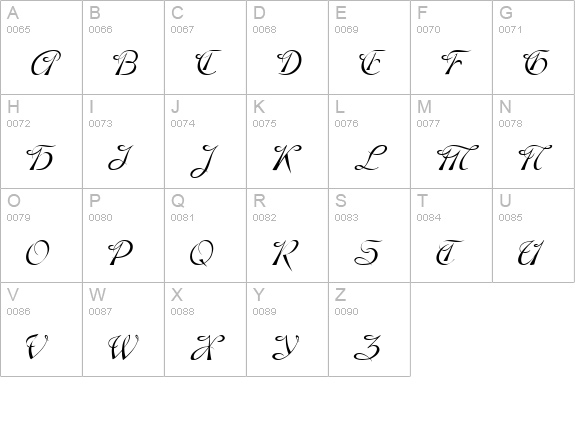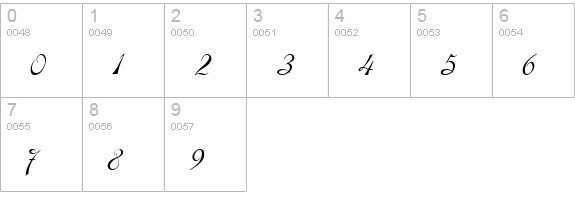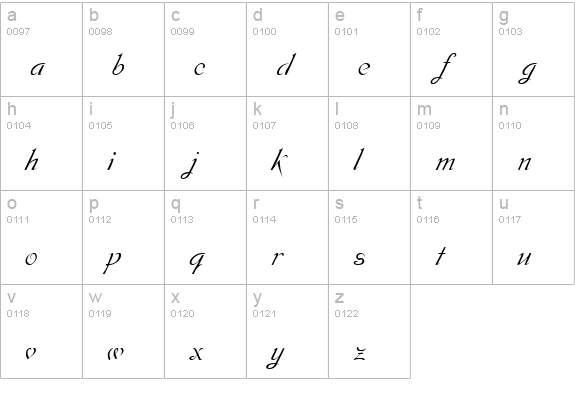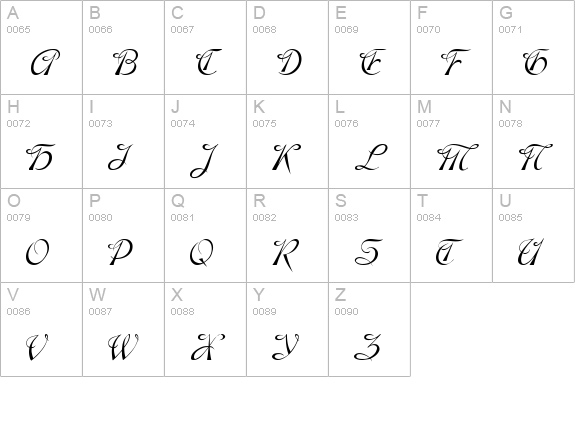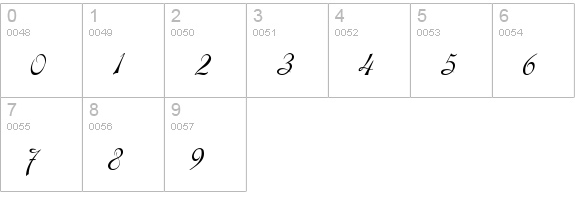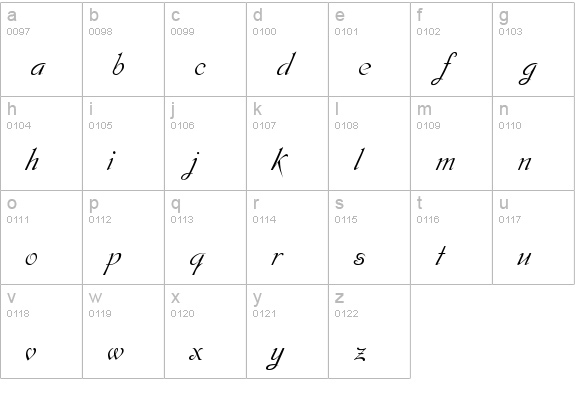
Dobkin-Script Regular is the standard, neutral variant in the Dobkin typeface family \xE2\x80\x94 well suited to general body text, paragraphs, and standard typographic work.
Dobkin-Script Regular font is a beautifully crafted typeface that exudes elegance and sophistication. Its flowing cursive style adds a touch of charm to any design project, making it perfect for invitations, greeting cards, and more. The smooth curves and graceful strokes of Dobkin-Script Regular font create a sense of fluidity and grace, making it a versatile choice for both formal and informal applications. Best of all, Dobkin-Script Regular font is available for free download at FontsMarket.com. Whether you're a designer looking to add a touch of class to your projects or an individual wanting to elevate your personal correspondence, Dobkin-Script Regular font offers a timeless and refined option that is sure to impress. Download this exquisite typeface today and bring a touch of sophistication to your creative endeavors.